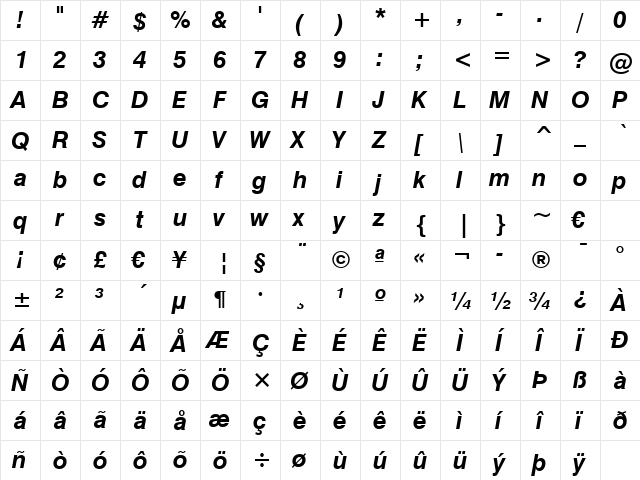
Swis721 BT Bold Italic
Design Context for Swis721 BT Typeface
Swis721 BT offers clean, dependable letterforms without strong stylistic allegiance, making it a practical choice for designers who need flexibility. Its italic angle brings a sense of urgency and motion to the letterforms. The heavy weight commands attention and anchors typographic hierarchies.
Pro Tip: Use Swis721 BT for emphasis, pull quotes, and subheadings where its slanted energy can add rhythm to the layout.